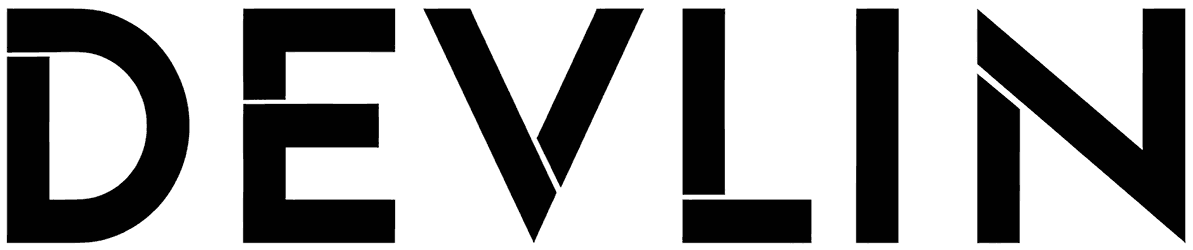
Devlin Font
Do you need a modern and unique item for your intended layout? As a sans serif font, Devlin has this mood, and with its matchable style, it would be used for various ideas. Even though the Devlin font doesn’t support low…
Do you need a modern and unique item for your intended layout? As a sans serif font, Devlin has this mood, and with its matchable style, it would be used for various ideas. Even though the Devlin font doesn’t support lowercase letters, numbers, and punctuation marks, it will remain a nice illustration for many novel designs like poster titles, packaging, covers, and so forth.